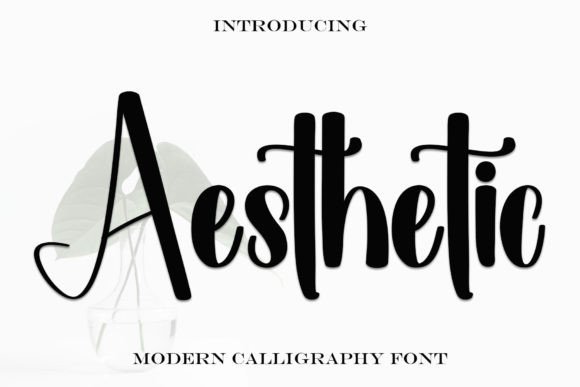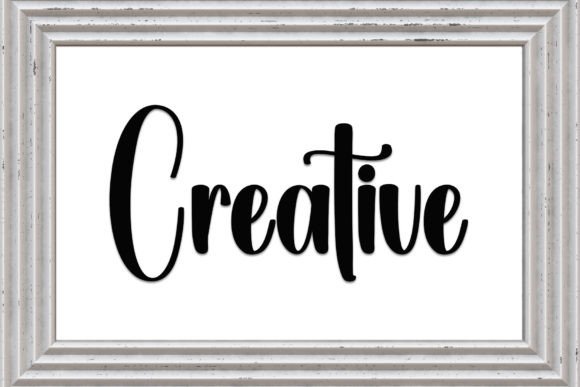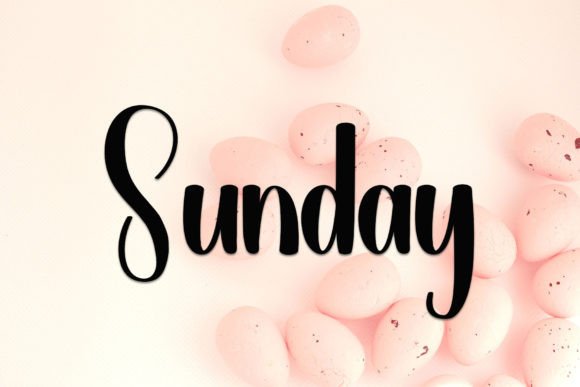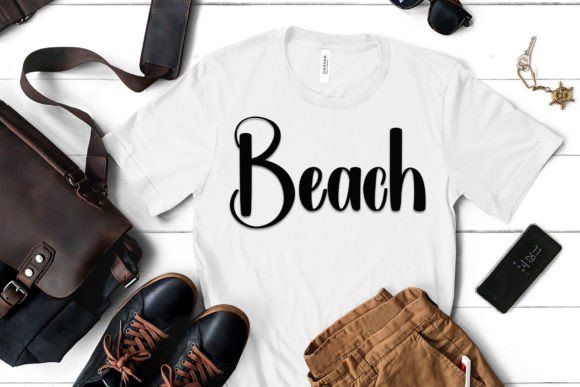
About the Aesthetic Font
Unleash your creativity with Aesthetic Font, a versatile font perfect for a wide range of applications. Aesthetic is a neat and beautiful handwritten font described by an elegant touch, perfect for your favorite projects.
Fall in love with its incredibly distinct and timeless style, and use it to create spectacular designs!
Aesthetic excels in display contexts such as logos, short headlines, and invitations where its elegant handwritten style adds a touch of sophistication. It’s also well-suited for packaging design, particularly for products emphasizing quality and craftsmanship. However, its delicate nature makes it less suitable for body text or UI elements where readability over long passages is crucial.
The font’s core personality is elegant and refined, yet approachable. It projects a sense of understated luxury and timeless style.
For effective pairings, consider a clean sans-serif like Open Sans or Lato for body text to provide a strong contrast and enhance readability. Alternatively, a classic serif such as Garamond or Georgia would complement its handwritten feel, creating a sophisticated and balanced design.
Aesthetic Font Usage Examples
Aesthetic Font Example